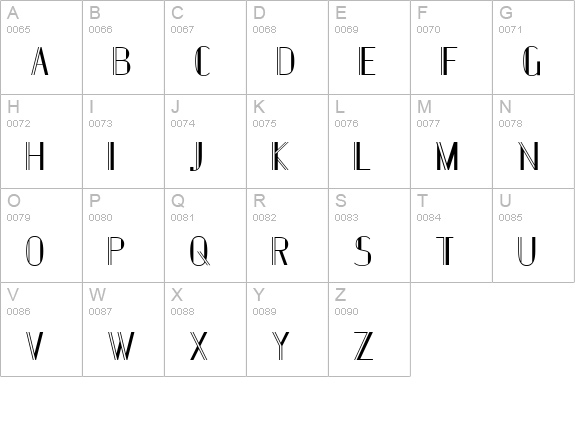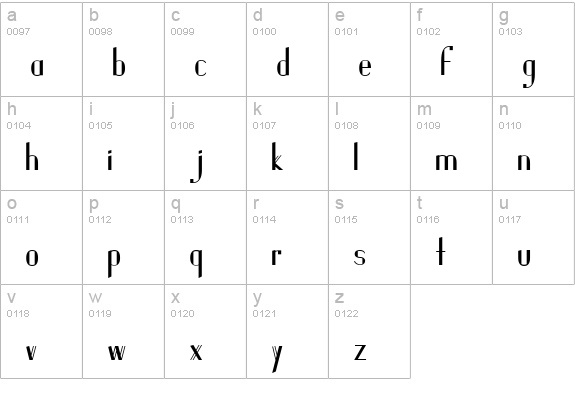
Janesville 51 Bold Font Details
Janesville 51 Bold is a strong, high-contrast variant in the Janesville typeface family \xE2\x80\x94 well suited to headlines, attention-grabbing titles, and strong calls-to-action.